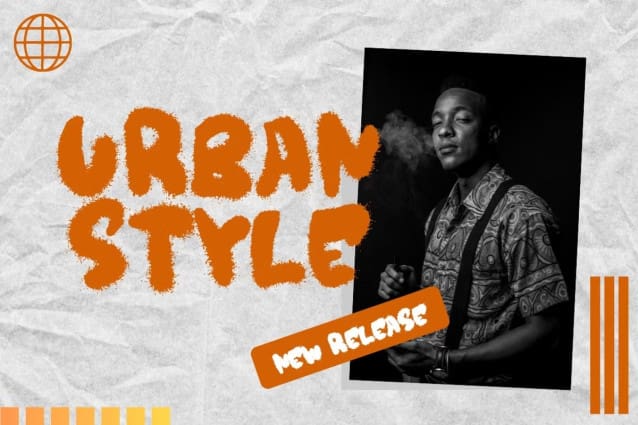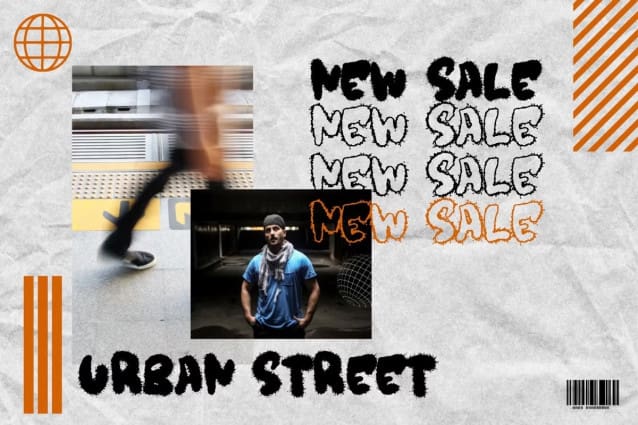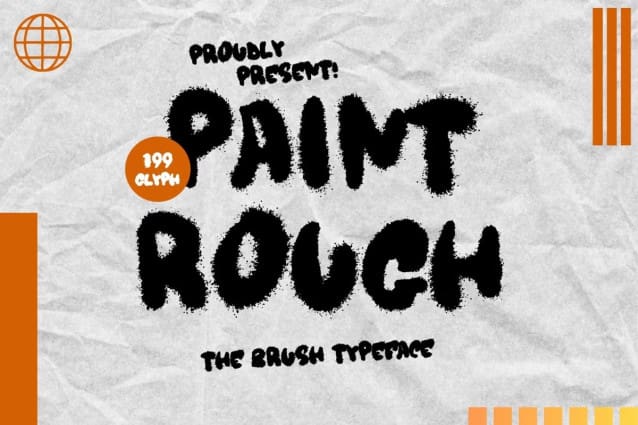
Paint Rough Font
Paint Rough Font – Rough Brush is a tool designed to create textured, uneven strokes in your artwork. It mimics the look of a rough, natural surface, adding depth and interest to your paintings with a more rugged and energetic style.